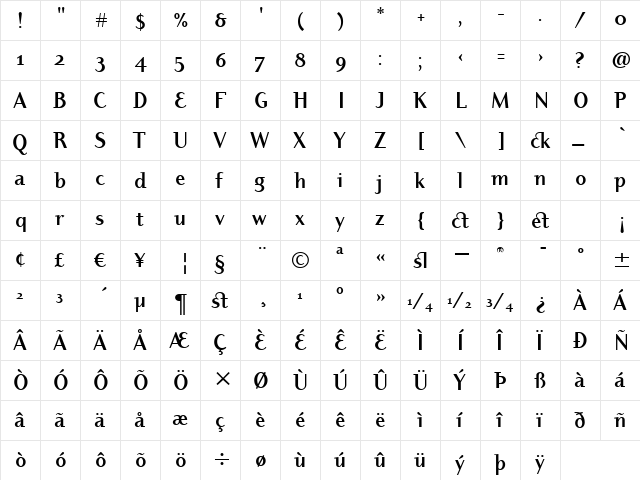
DyadisOSITC TT Bold Font Preview
DyadisOSITC TT Bold
DyadisOSITC TT Bold Font Details
| Foundry | International Typeface Corporation |
| Designer | Yvonne Diedrich |
Design Context for DyadisOSITC TT Typeface
DyadisOSITC TT offers clean, dependable letterforms without strong stylistic allegiance, making it a practical choice for designers who need flexibility. Its bold stroke weight gives it real presence on the page.